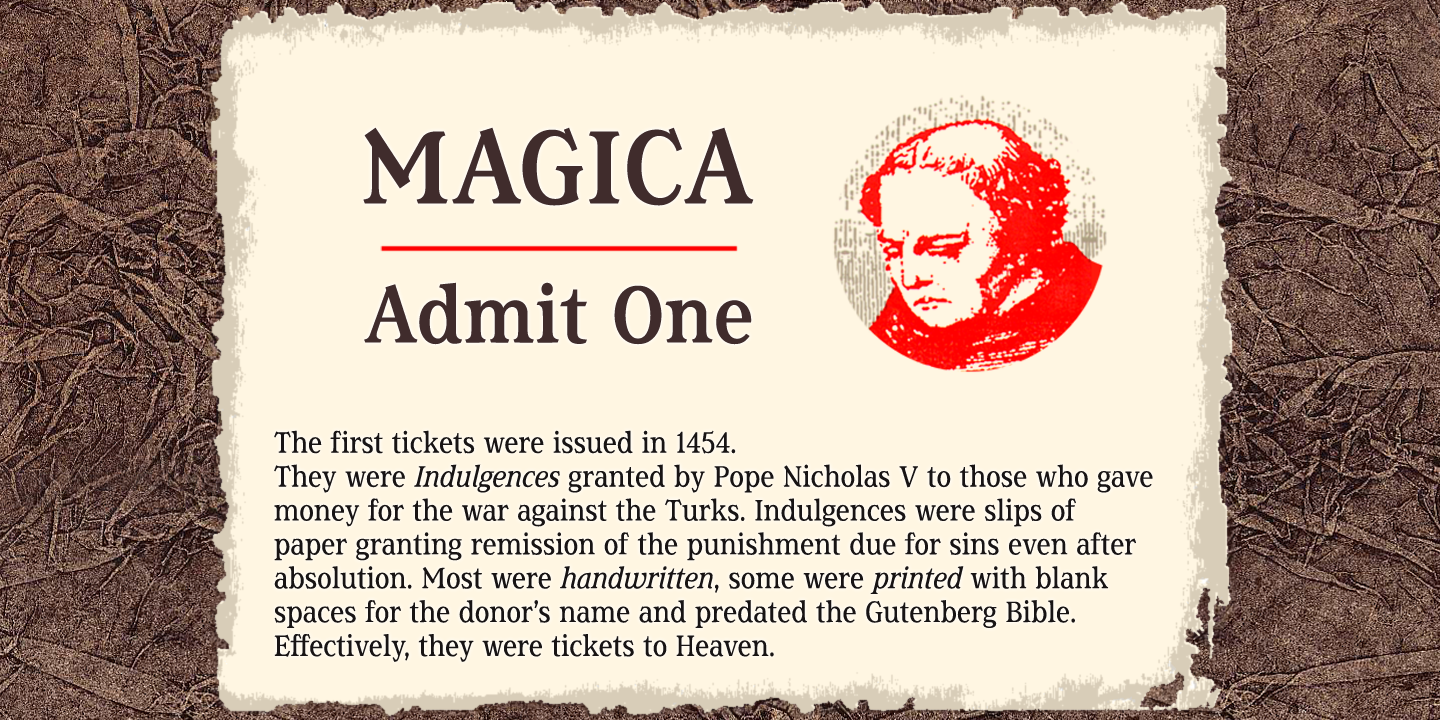
If you’re looking for a font that brings enchantment and creativity to your designs, the Magica Font Free Download is the perfect choice. With its whimsical curves and playful character, Magica Font adds a sense of wonder to any project. Whether you are designing fantasy-themed posters, children's books, event invitations, or branding elements, this font helps you capture a magical atmosphere effortlessly.
Magica Font is crafted to be both artistic and highly readable. Its flowing letterforms and balanced proportions make it versatile for use in both headlines and body text. The font’s unique charm ensures that it stands out while maintaining the professional quality needed for serious creative work.